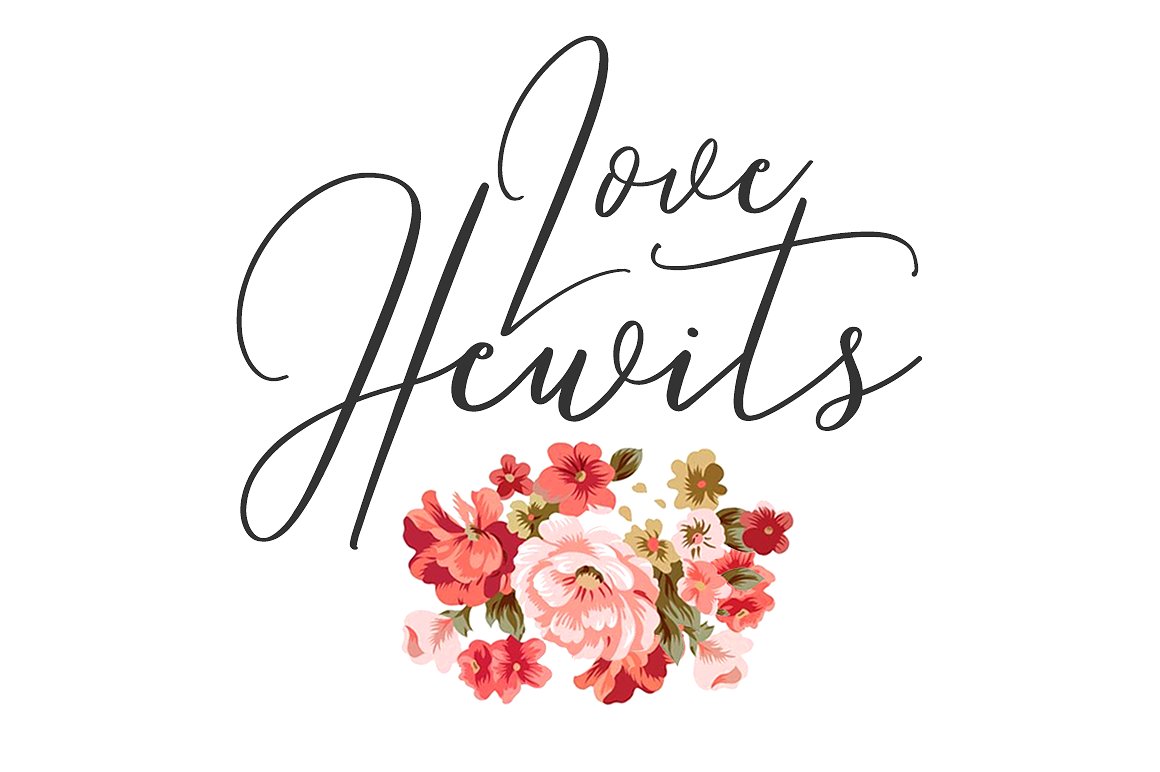
Love Hewits Typeface
Give your designs an authentic handcrafted feel. “Love Hewits” is perfectly suited to signature, stationery, logo, typography quotes, magazine or book cover, website header, clothing, branding, packaging design and more.
| Classification: | Handwritten Fonts, Script Fonts |